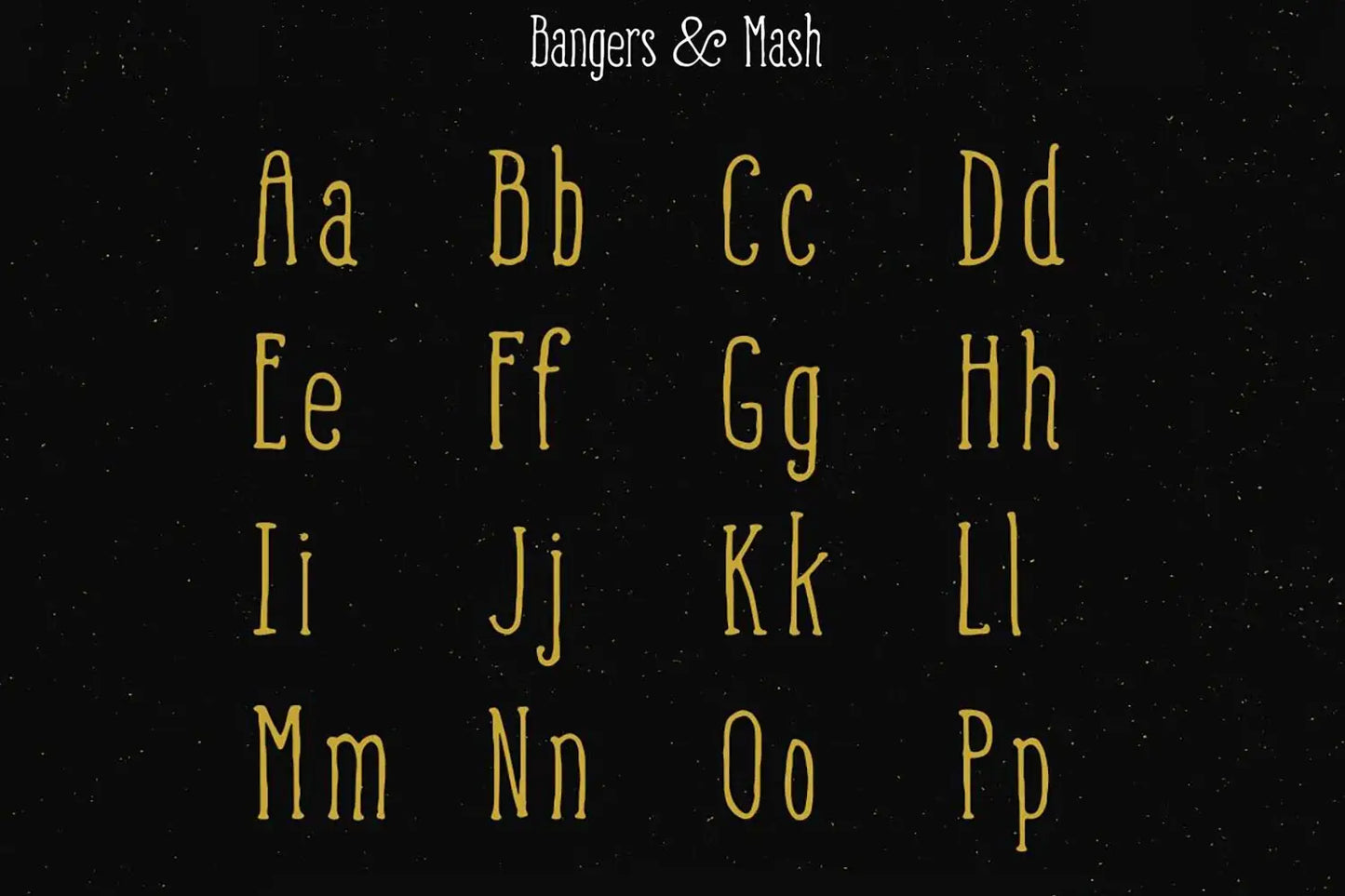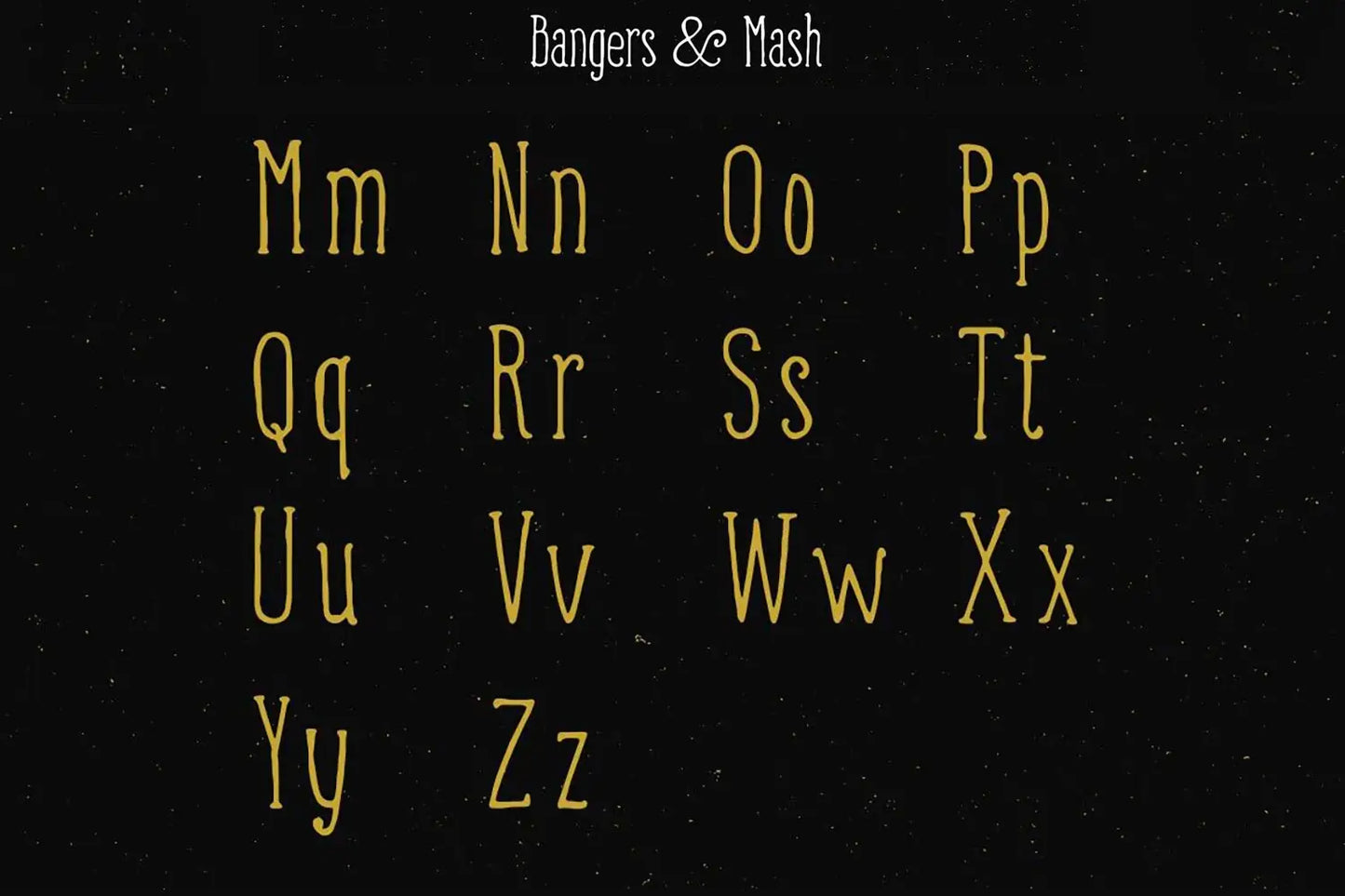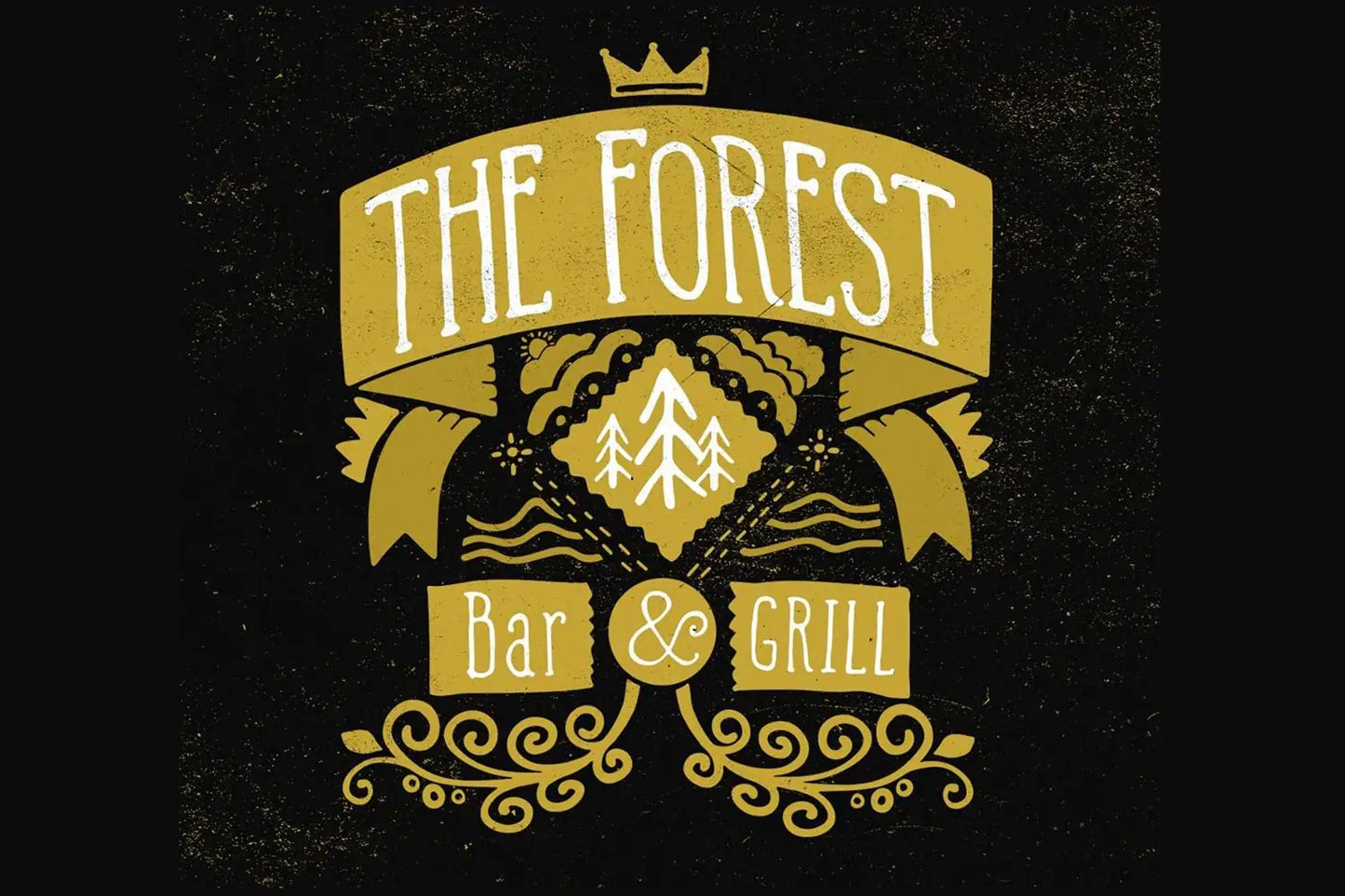
Bangers and Mash
About Bangers and Mash
Bangers and Mash font looks charming and is an utterly adorable and cute little beast. The characters look like they are wobbling along the baseline without a care in the world. That was intentional to make it look more fun and carefree.
It’s got tiny serifs. Some are kind of decorative and help to give the font a nostalgic and quirky feeling.
If you're designing a whimsical greeting card, branding, invitation, a cheerful poster, or simply want to infuse your project with warm English charm, Bangers and Mash font is your go-to.
If the Bangers and Mash font were a celebrity
If the Bangers and Mash font were a celebrity, it would embody the cheerful and iconic presence of Sir David Attenborough. Just as Sir David Attenborough is celebrated for his engaging nature documentaries and warm narration, Bangers and Mash font carries a playful and friendly spirit in the world of typography.